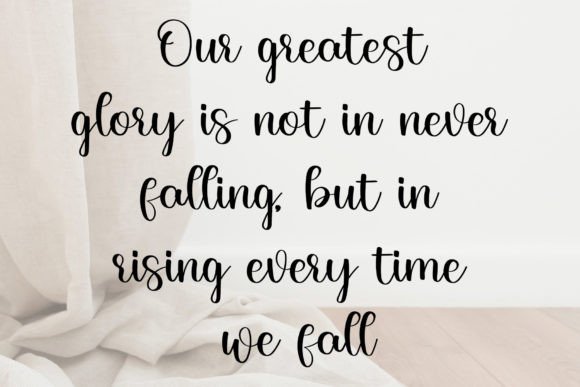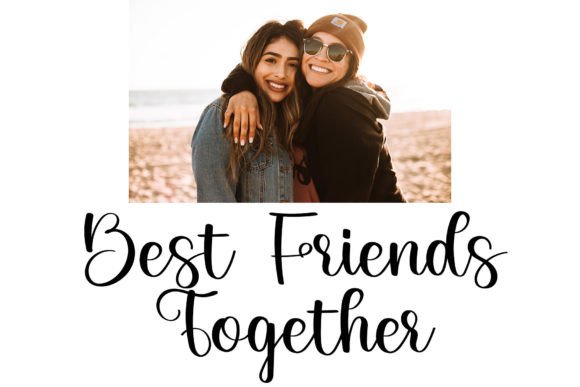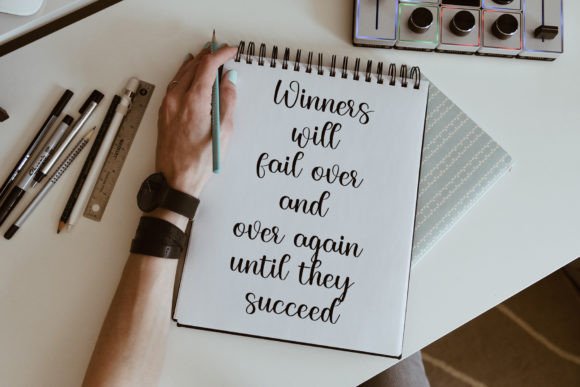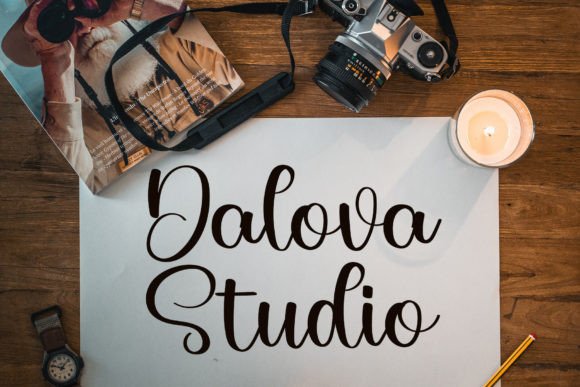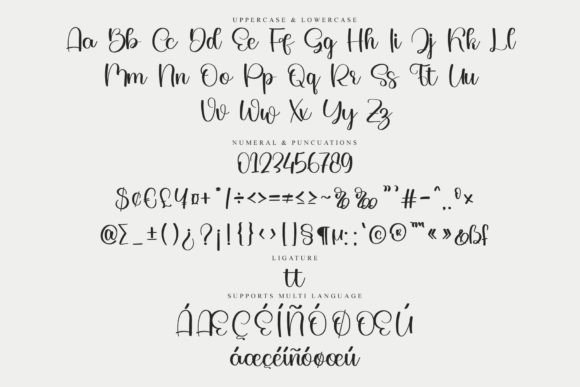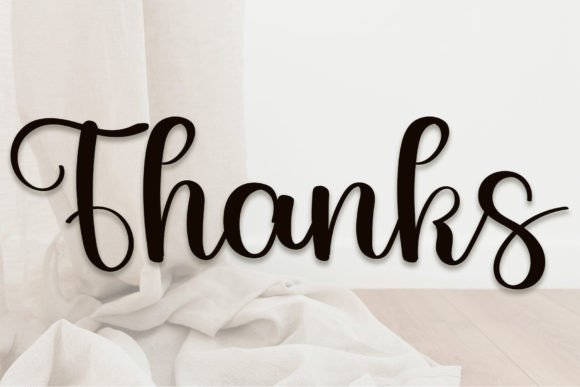
Barely Font: The Sweet and Cursive Handwritten Font for Your Design Needs
Are you looking for a font that can add a touch of sweetness and romance to your design projects? Look no further than the Barely Font! This beautiful, cursive handwritten font is perfect for a variety of design ideas and is sure to make your projects stand out. In this article, we’ll take a closer look at the Barely Font, its features, and how you can use it to elevate your designs.
What is Barely Font?
Barely Font is a sweet and cursive handwritten font that is designed to add a touch of elegance and romance to your design projects. This gentle font is perfect for creating beautiful and eye-catching designs that will capture the attention of your audience. With its flowing curves and delicate lines, Barely Font is ideal for a wide range of design applications, from wedding invitations and party decorations to branding and advertising materials.
Features of Barely Font
So, what makes Barely Font so special? Here are just a few of its key features:
- Sweet and Cursive Design: Barely Font has a beautiful, cursive design that is both sweet and elegant. Its flowing curves and delicate lines make it perfect for creating romantic and eye-catching designs.
- Handwritten Style: This font has a handwritten style that gives it a personal and unique touch. It’s perfect for creating designs that look like they were written with love and care.
- Versatile: Barely Font is incredibly versatile and can be used for a wide range of design applications. Whether you’re creating wedding invitations, party decorations, or branding materials, this font is sure to impress.
- Easily Readable: Despite its cursive design, Barely Font is easily readable, even at small sizes. This makes it perfect for creating designs that need to be both beautiful and functional.
How to Use Barely Font in Your Designs
Now that we’ve covered the features of Barely Font, let’s talk about how you can use it in your designs. Here are a few ideas to get you started:
- Wedding Invitations: Barely Font is perfect for creating beautiful and romantic wedding invitations. Its sweet and cursive design makes it ideal for this type of project.
- Party Decorations: Whether you’re planning a birthday party, baby shower, or other celebration, Barely Font is a great choice for creating eye-catching decorations.
- Branding and Advertising: This font is also great for branding and advertising materials, such as logos, brochures, and flyers. Its unique and elegant design is sure to make your brand stand out.
- Social Media Graphics: Barely Font is perfect for creating beautiful and engaging social media graphics, such as Instagram posts and Facebook covers.
Tips for Using Barely Font
Here are a few tips for using Barely Font in your designs:
- Pair it with Other Fonts: Barely Font looks great when paired with other fonts. Try pairing it with a bold sans-serif font for a beautiful contrast.
- Use it in Combination with Images: This font looks great when used in combination with images. Try using it to add text to a beautiful photograph or illustration.
- Experiment with Colors: Barely Font looks great in a variety of colors. Experiment with different colors to find the one that works best for your design.
In conclusion, Barely Font is a beautiful and versatile font that is perfect for a wide range of design applications. Its sweet and cursive design makes it ideal for creating romantic and eye-catching designs that will capture the attention of your audience. Whether you’re a designer, crafter, or DIY enthusiast, Barely Font is a great choice for your next project. So why not give it a try and see the difference it can make?